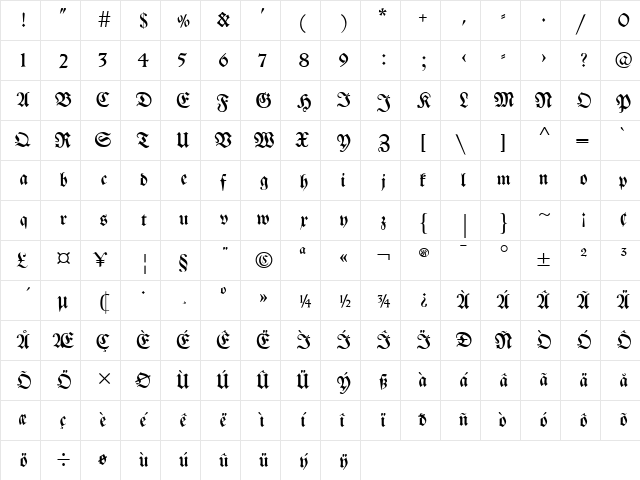
Breitkopf FrakturUNZ1L Italic
Design Context for Breitkopf FrakturUNZ1L Typeface
Breitkopf FrakturUNZ1L channels the dramatic heritage of Fraktur and Gothic scripts, bringing a sense of historical gravitas to any design. Its italic angle brings a sense of urgency and motion to the letterforms.
Well-suited to band logos, craft beer branding, tattoo lettering, and heritage-themed identities.
Font Pairing: Pair with a clean neutral sans-serif for body copy to let Breitkopf FrakturUNZ1L's character lead without overwhelming the composition.
Pro Tip: Use Breitkopf FrakturUNZ1L sparingly at large sizes. Even a single word set in blackletter can define the visual register of an entire design.